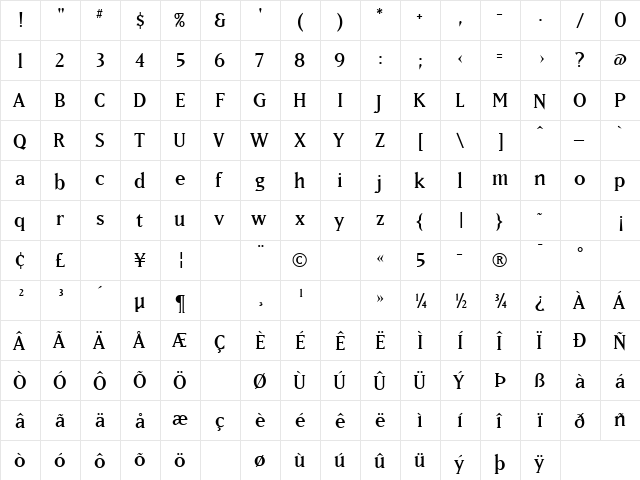
MatrixLining Regular Font Preview
MatrixLining Regular
Design Context for MatrixLining Typeface
MatrixLining takes a measured approach to typography — its balanced proportions and neutral character make it a reliable workhorse for both digital and print work.